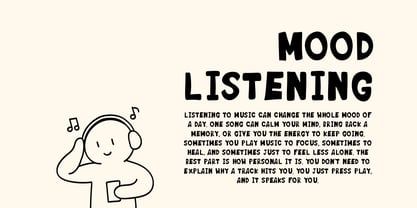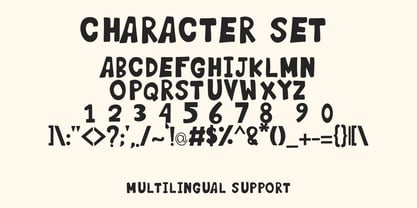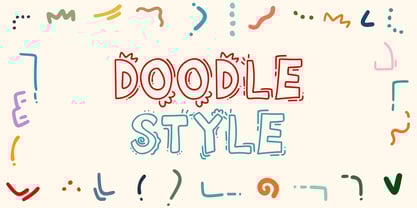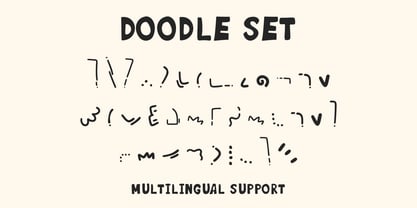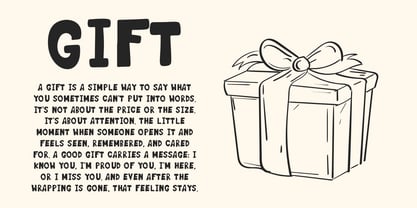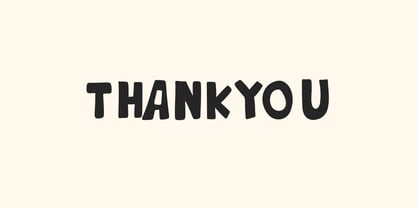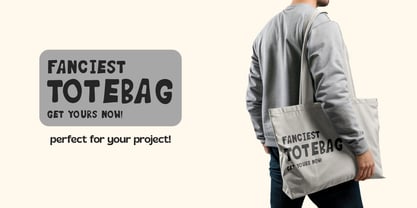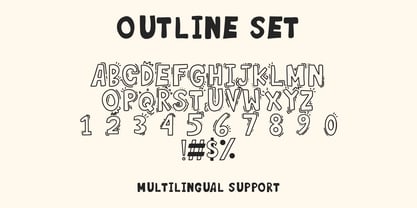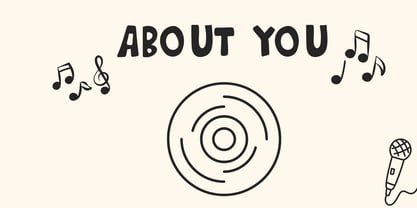
Meet Funflare, the Playful Font Trio
Funflare is a playful 3-in-1 font set designed to make your designs feel bright, friendly, and full of character. You get Funflare Regular for clean, everyday headlines, Funflare Stylish for extra flair and personality, and Funflare Doodle for cute hand-drawn accents that instantly add charm. Because the set is built to work together, you can create complete designs fast, from the main title to the little finishing details. Use it for kids branding, sticker packs, party invites, classroom posters, social posts, packaging, and playful quotes. As a result, your layouts look more fun and more finished in minutes.
Why Funflare sells
First, you can build a full design system with one bundle: headline, supporting style, and doodle accents. Next, it’s easy to use in Canva, Photoshop, and Illustrator, so you can move from idea to product quickly. Then your designs stay consistent because the three fonts share the same friendly vibe. Moreover, the doodles help you decorate without hunting for extra graphics, which saves time and keeps your products cohesive. Therefore, Funflare is perfect for fast collections, seasonal drops, and template packs.
Fast layouts with Funflare
Start with Funflare Regular for the main headline. After that, swap one or two words into Funflare Stylish to add a highlight moment. Because contrast creates focus, keep the stylish version for emphasis, not everything. In addition, sprinkle Funflare Doodle around the edges as simple icons, borders, or separators. Finally, lock in a bright palette like sunny yellow + cream, coral + ivory, teal + white, or navy + mint to repeat across your product line.
Creative uses and quick wins
Kids logos, snack labels, and playful branding
Sticker sheets, planner stickers, and journaling cards
Party invites, banners, cupcake toppers, and gift tags
Classroom posters, worksheets, and reward charts
Social posts, reels covers, and quote templates
What you get
Uppercase, lowercase, numbers, punctuation
3 styles: Regular, Stylish version, and Doodle font
Multilingual Latin support (where included in your build)
Clean curves for print, cutting, and high-res exports
Design tips for Funflare
Keep your headline short and let the shapes do the work. Also, use the Stylish version for keywords like “SALE,” “NEW,” or “HAPPY.” For the doodles, keep it light: a few accents look premium, too many can feel crowded. Finally, export at 300 DPI for print and at 2× size for web so everything stays crisp.
Funflare Doodle